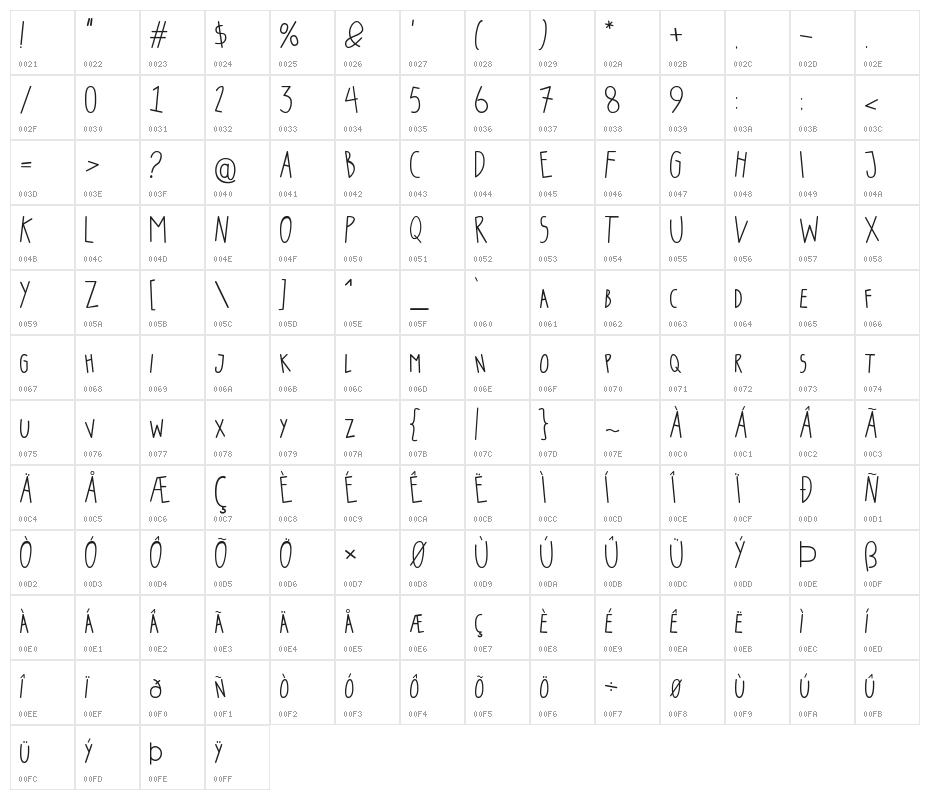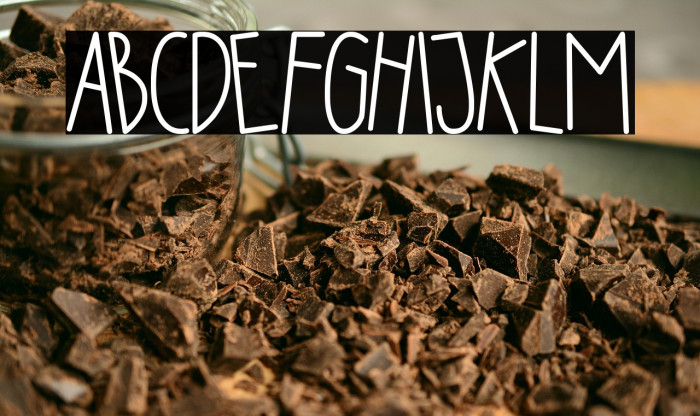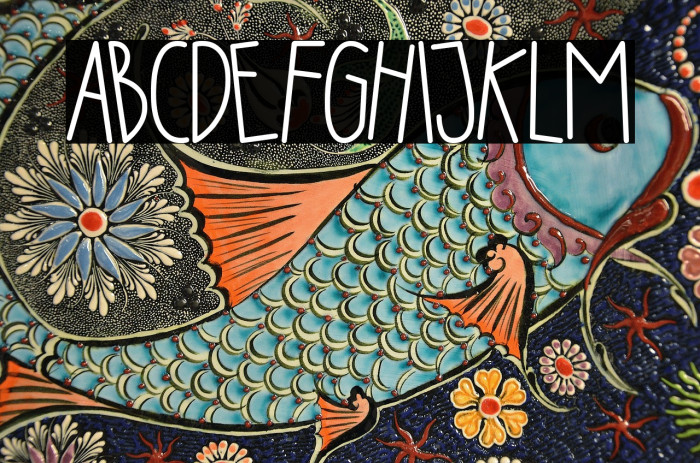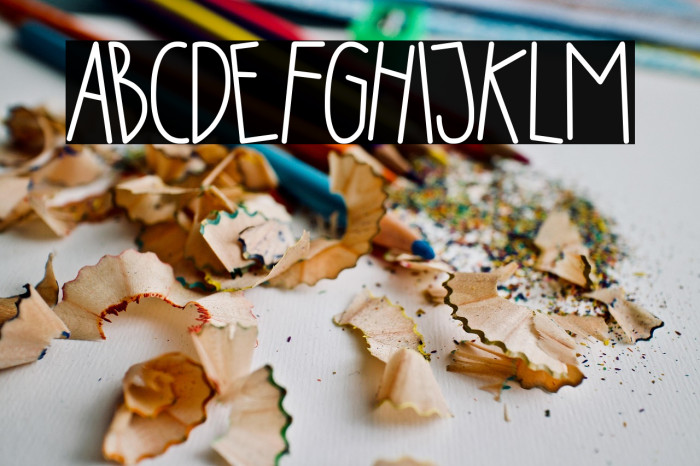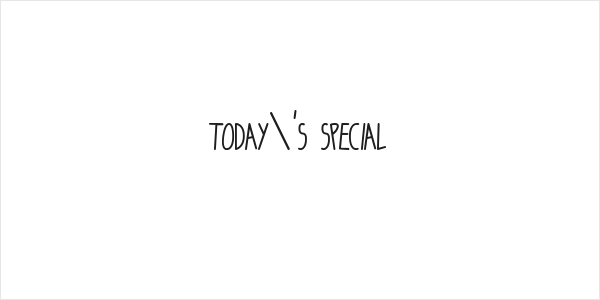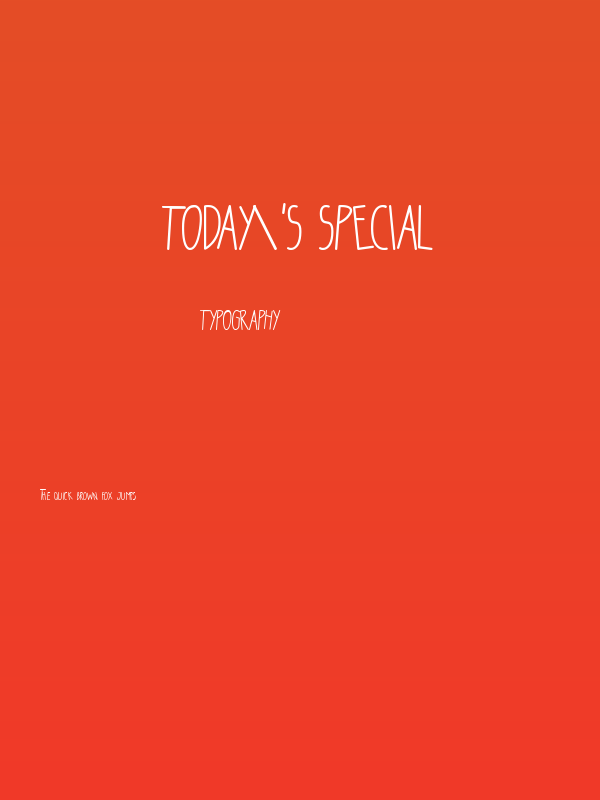
today's special Font
today's special Description
This font features a playful and informal handwritten style, characterized by tall, narrow letters with a slight slant. The strokes are consistent in width, giving it a uniform appearance, while the rounded edges add a friendly and approachable feel. The uppercase and lowercase letters maintain a cohesive look, with the uppercase being slightly taller and more elongated. Numbers and special characters are designed to match the overall aesthetic, ensuring a harmonious look across all elements. The font's casual and whimsical nature makes it ideal for projects that require a personal touch.
| Use Case | Headlines, Informal text, Branding |
| Proposed Projects | Ideal for greeting cards, children's books, casual branding, and social media graphics. |